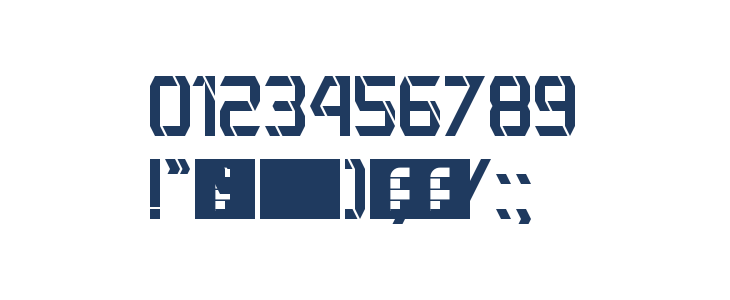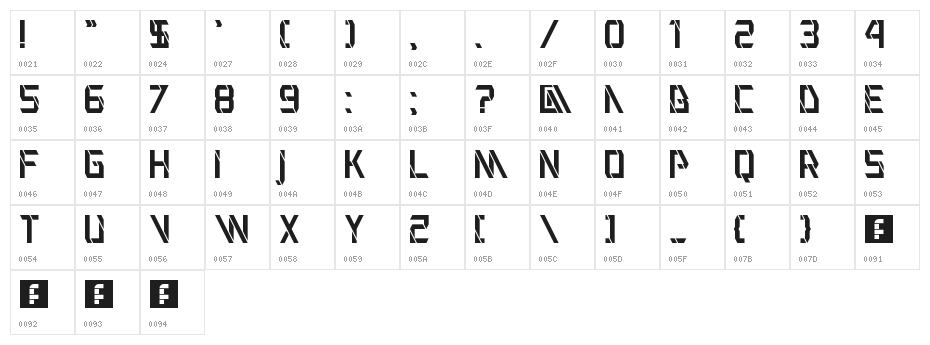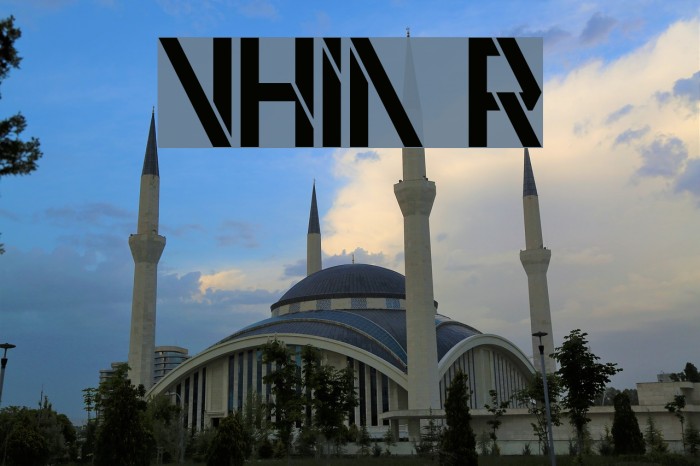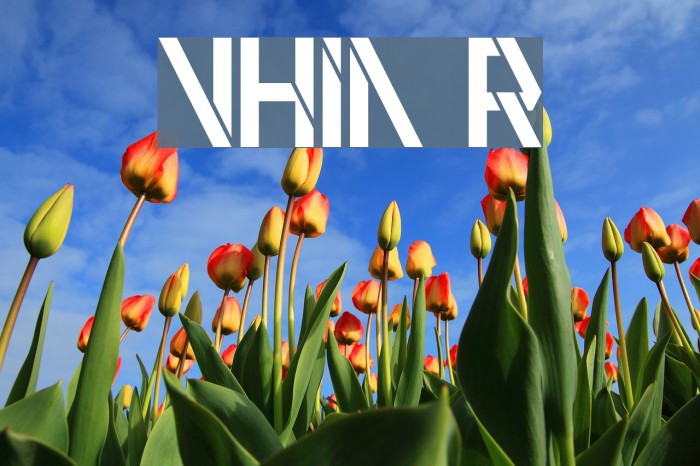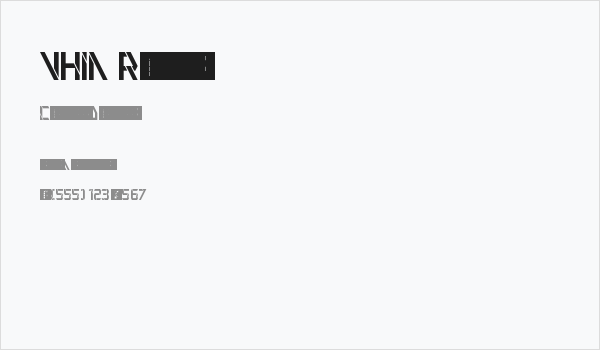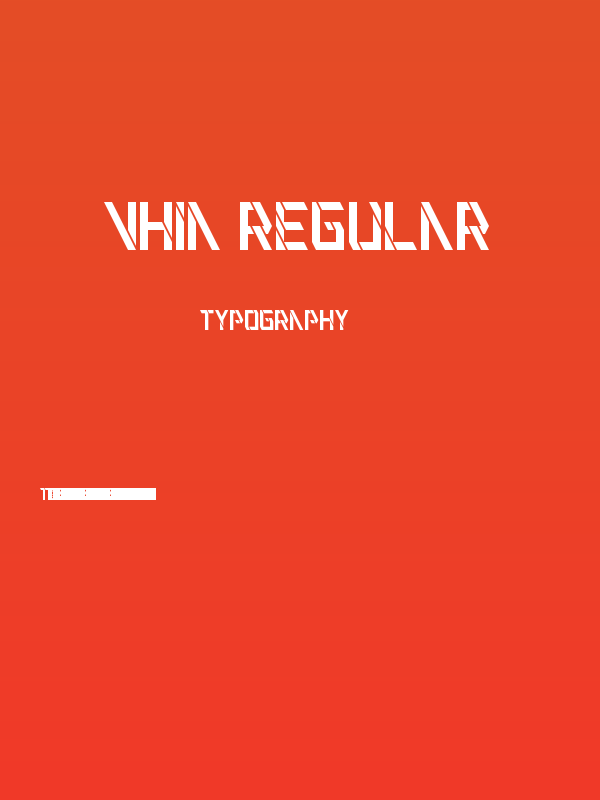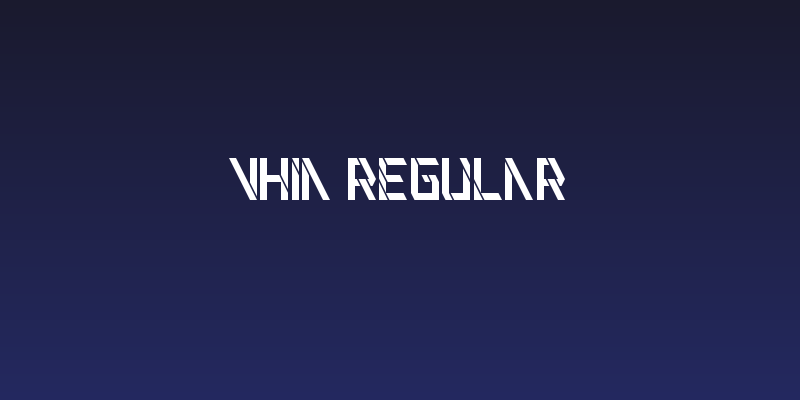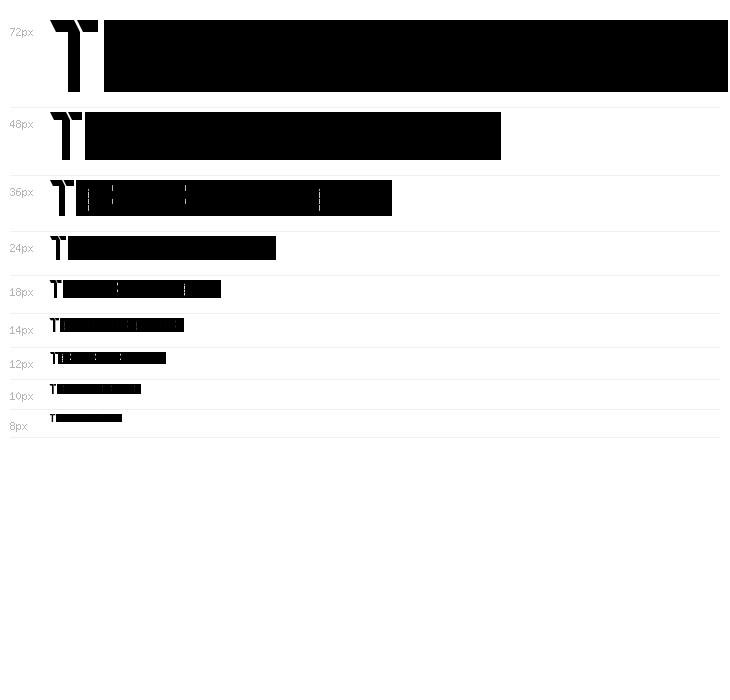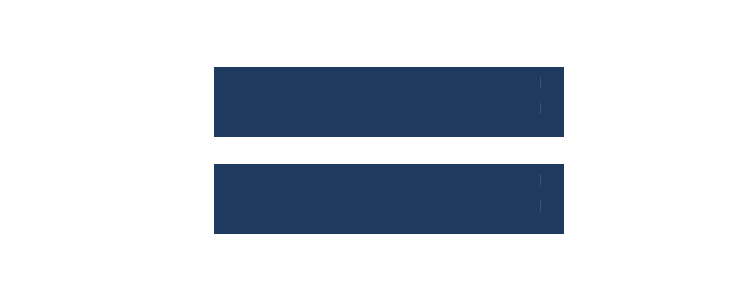
VHIA Regular Font
VHIA Regular Description
This font features a bold, geometric design with a futuristic aesthetic. The characters are constructed with sharp angles and distinct cut-out sections, creating a dynamic and edgy appearance. The uppercase letters are particularly striking, with a uniform height and width that gives them a blocky, robust look. The lowercase letters maintain this geometric style, ensuring consistency across the typeface. Numbers and special characters follow the same design principles, making them easily recognizable while still fitting within the overall theme. The font's unique style makes it stand out, suitable for projects that require a modern and unconventional look.
Proposed ProjectsIdeal for sci-fi themed projects, video game titles, tech branding, and modern posters.